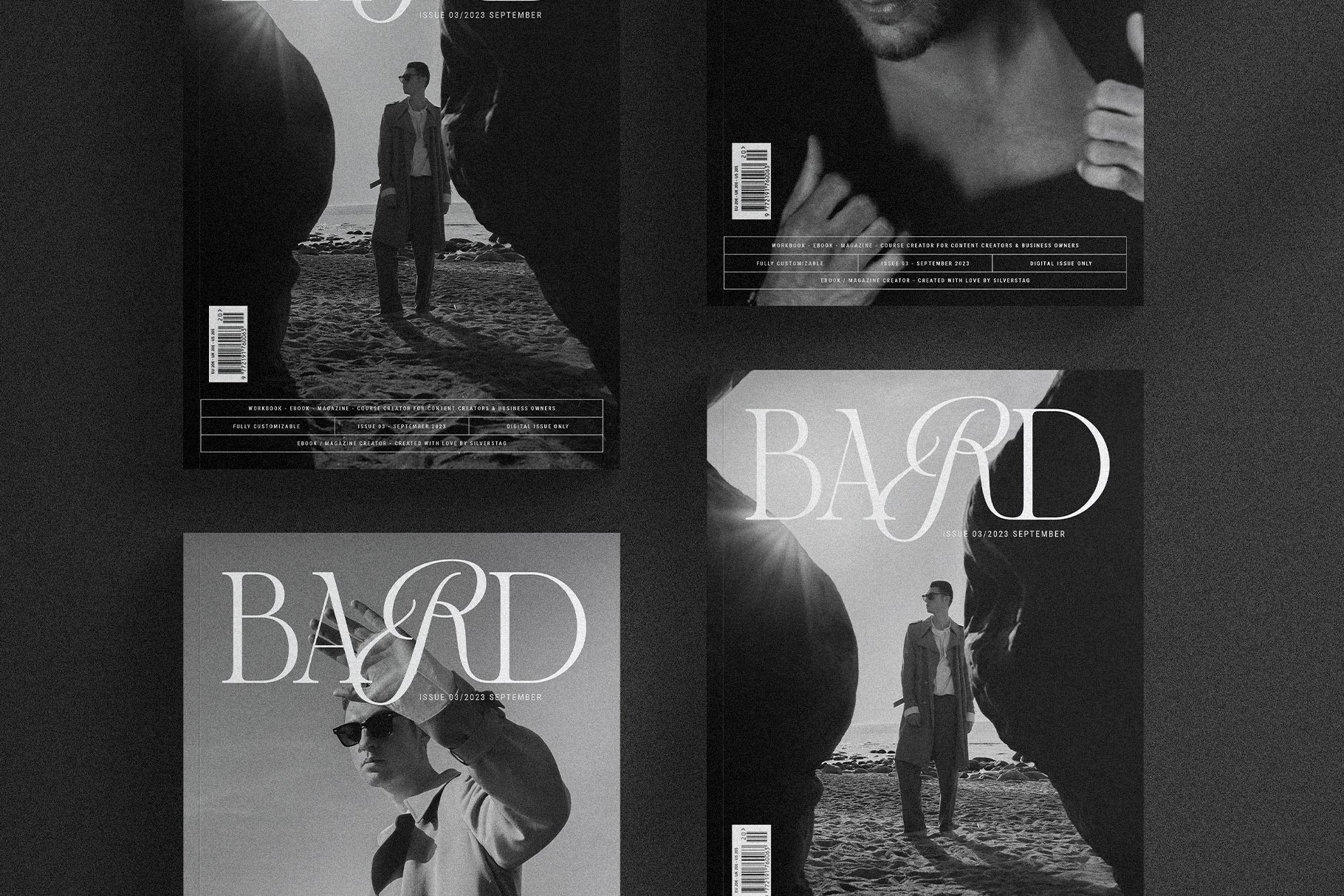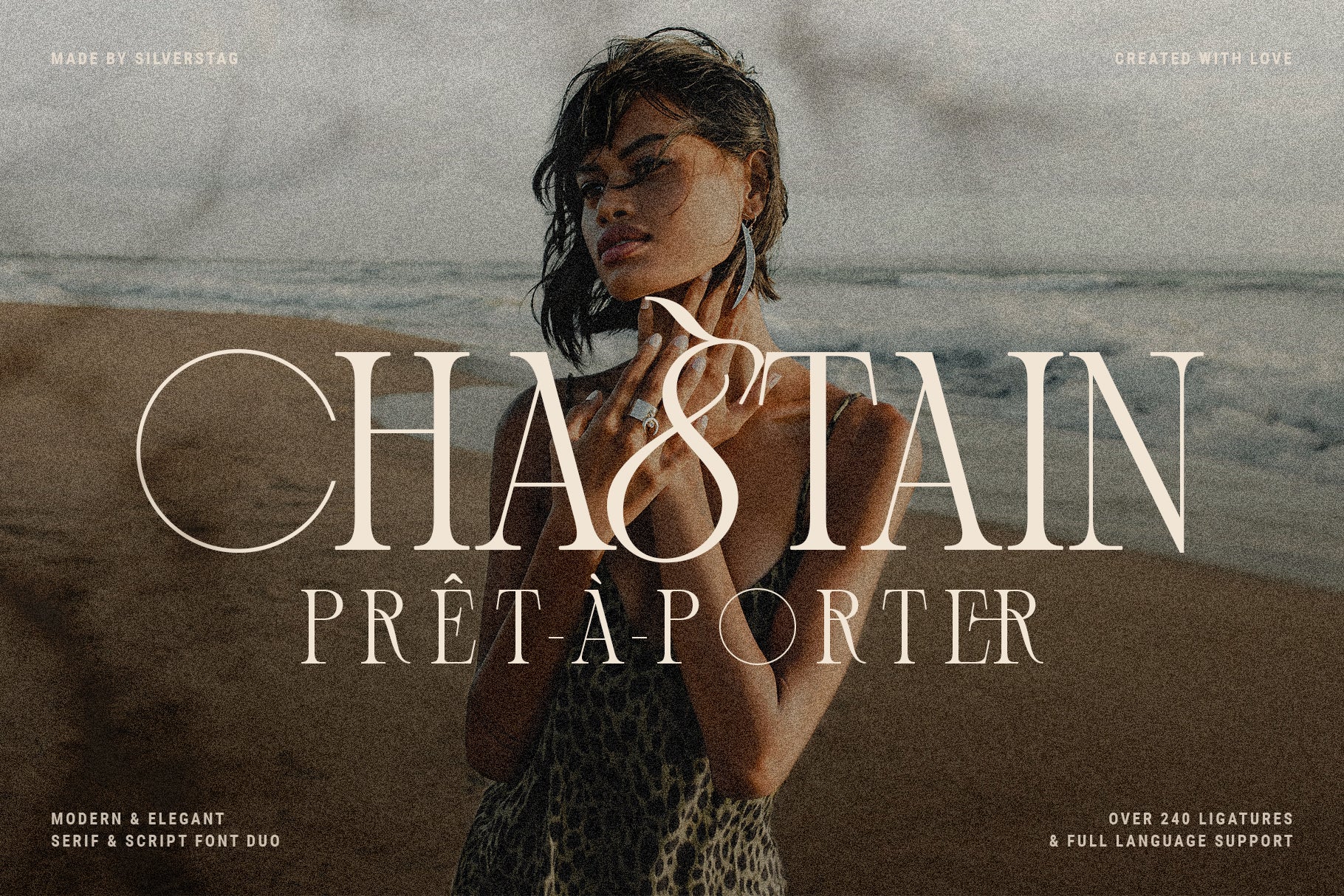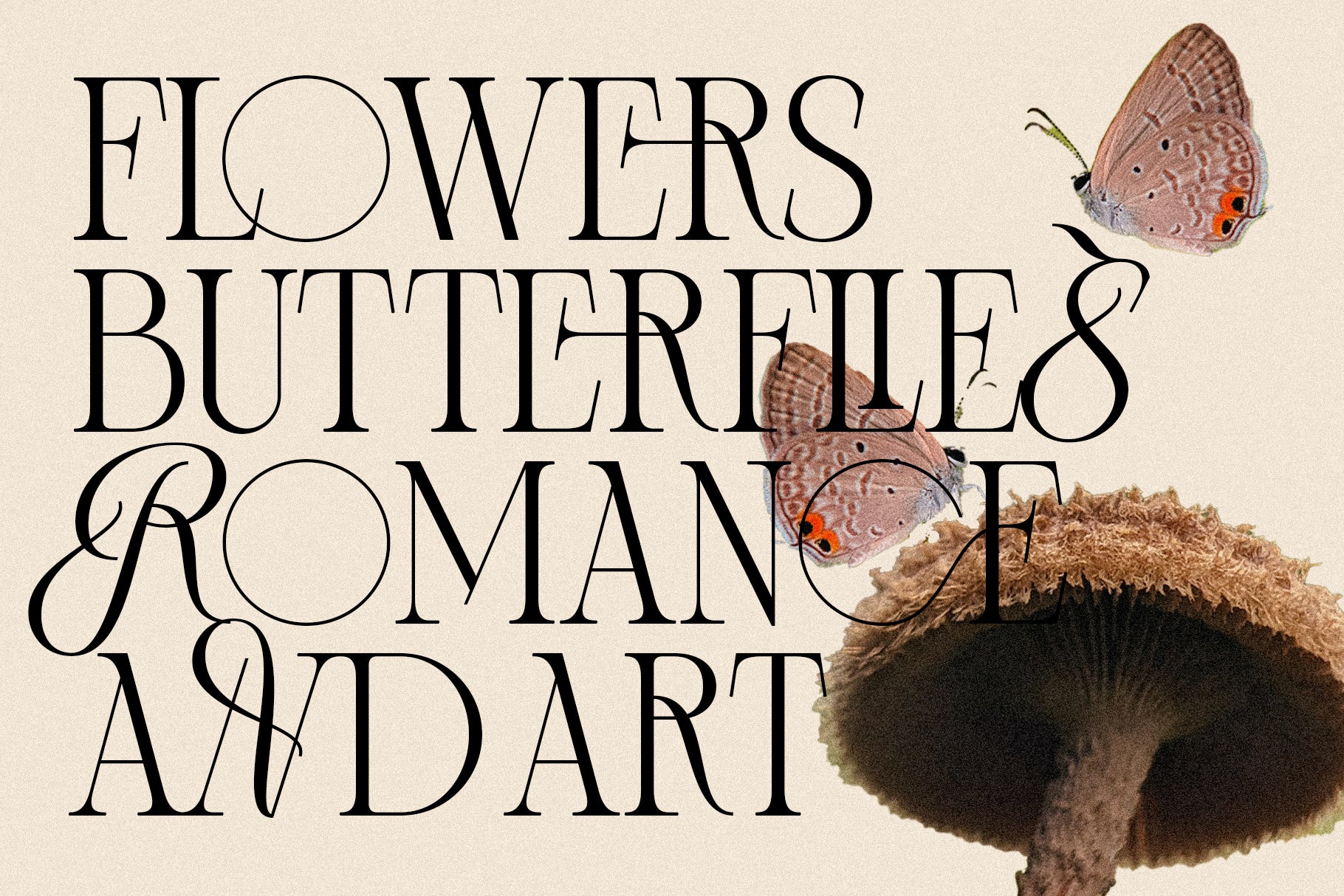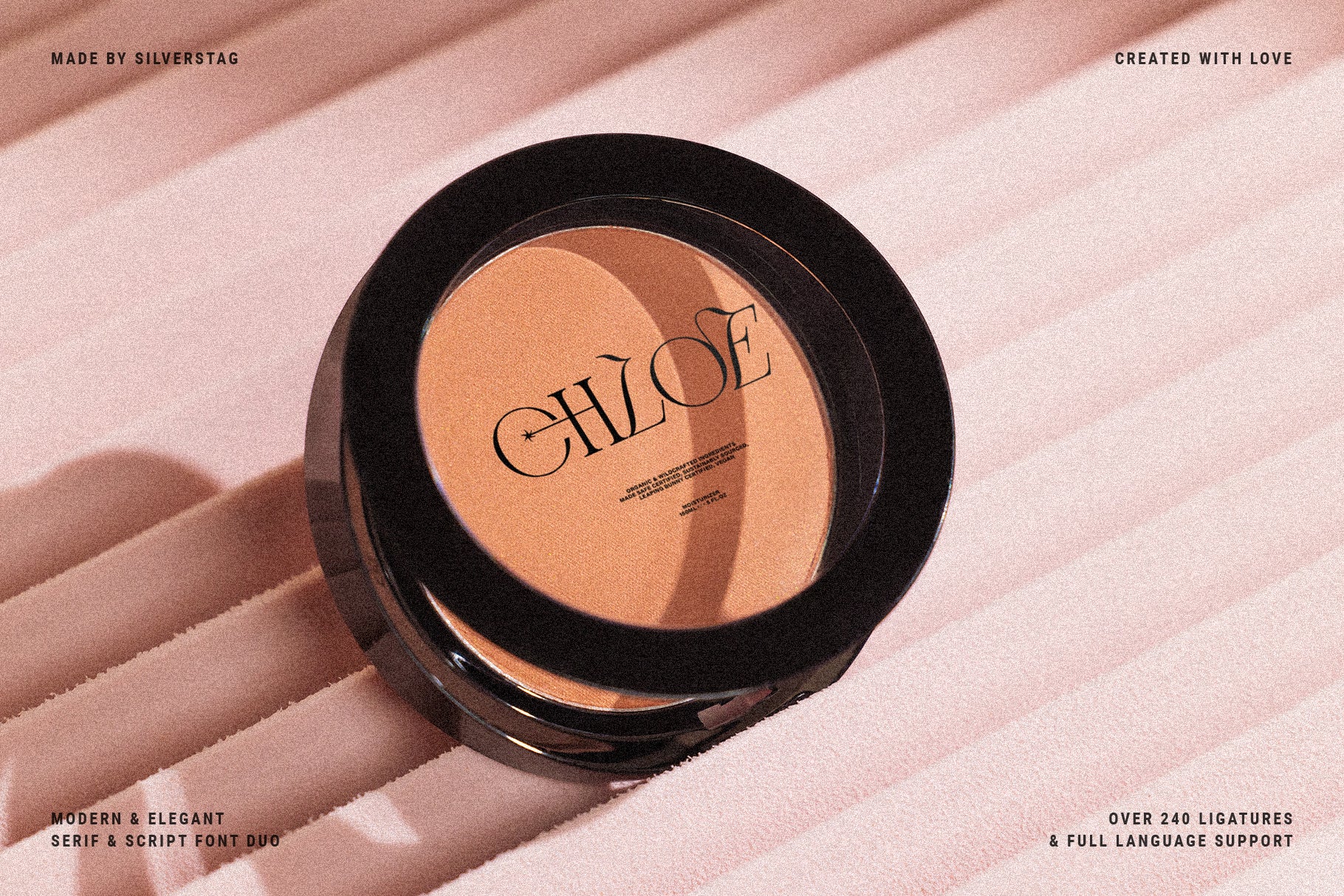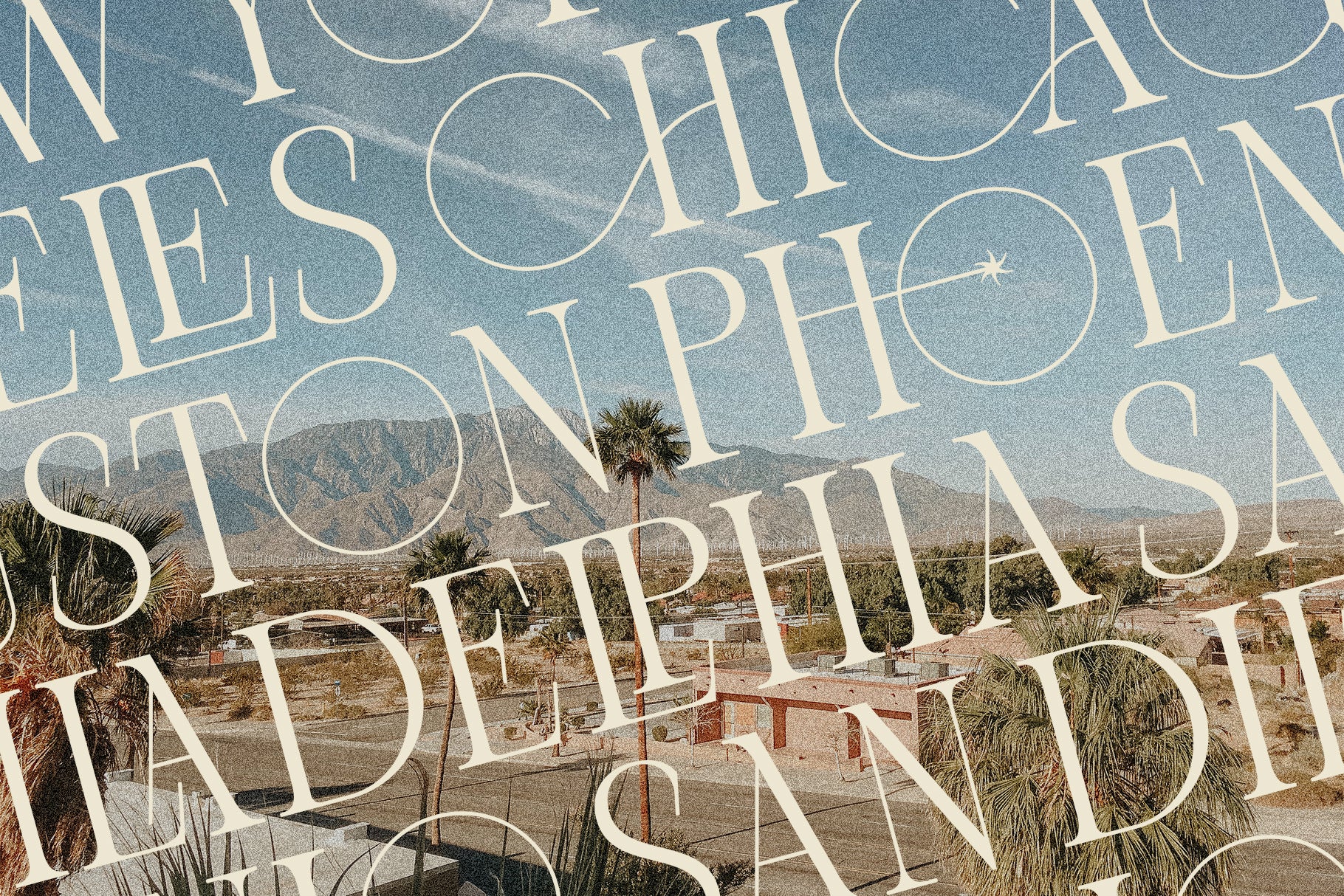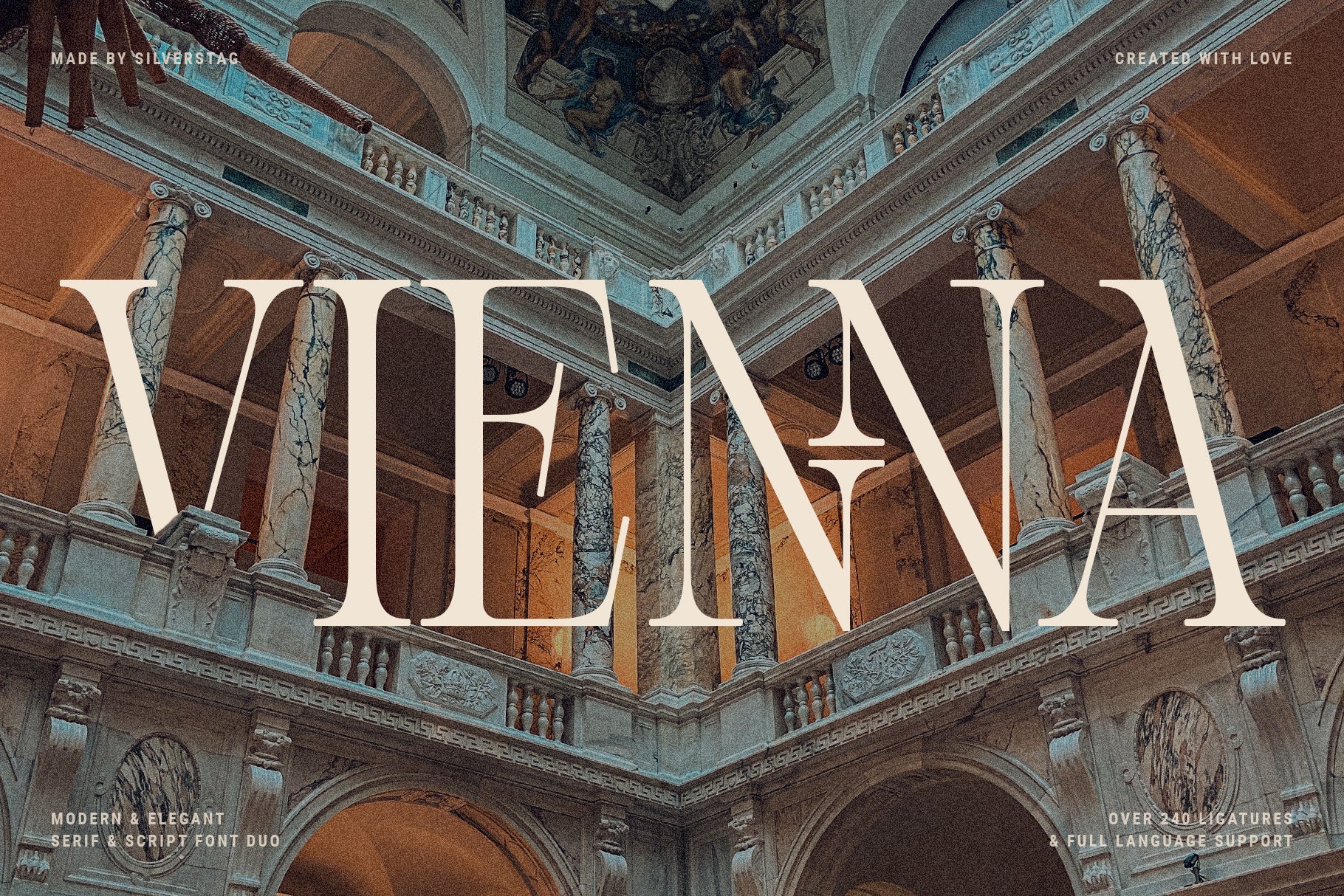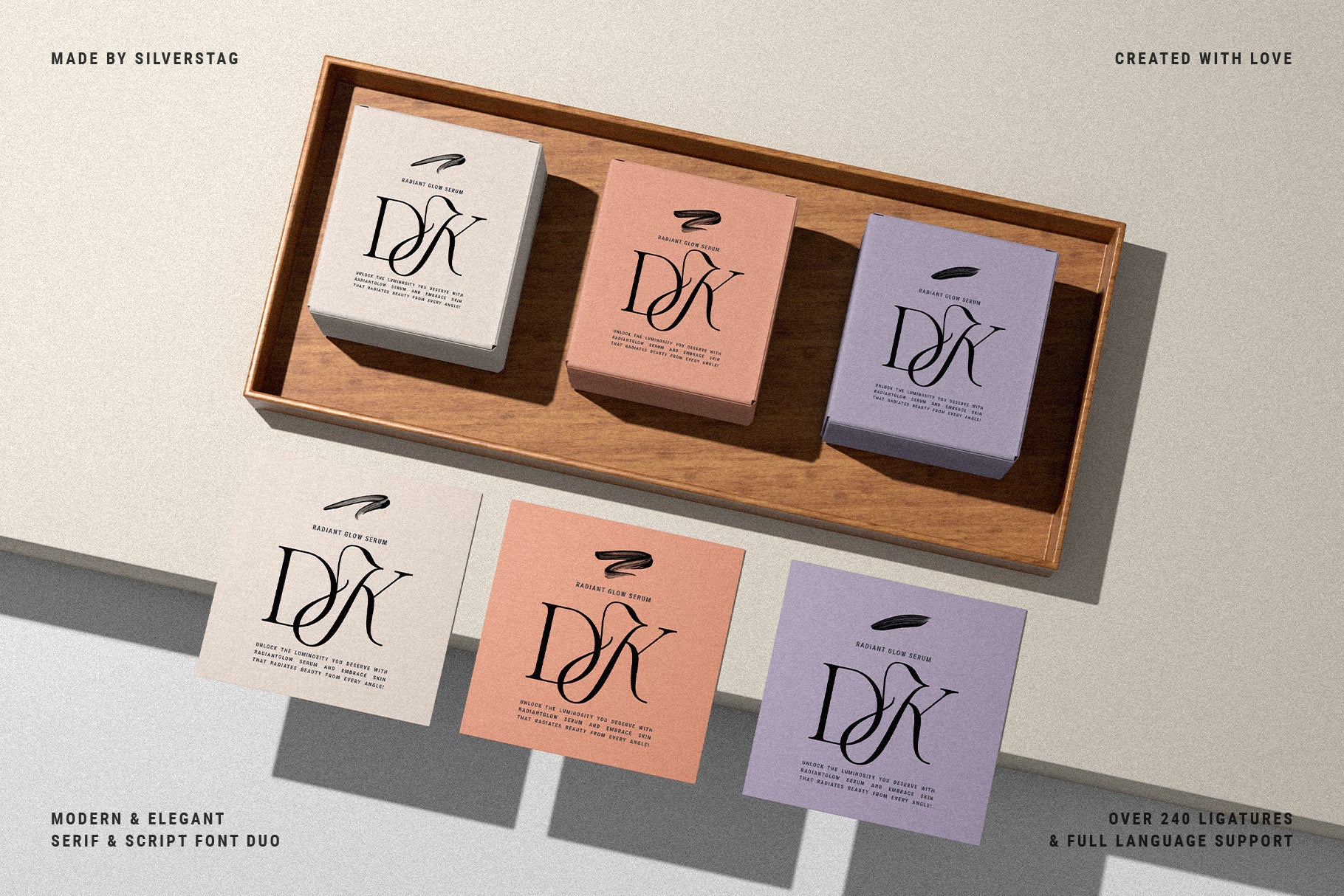
Bespoke Display is an elegant font duo that merges the timeless beauty of a modern serif with the graceful flow of an expressive script. Designed to feel refined yet imaginative, this typeface brings together two voices—structured and fluid—for designs that are both polished and personal.
Featuring over 240 ligatures and stylistic alternates, Bespoke Display offers endless combinations for creating distinctive headlines, refined logos, artistic branding, and editorial design. The high contrast between thin and thick lines adds a dramatic flair, while the seamless pairing of serif and script creates a bold, cohesive typographic system.
With full language support for over 90 languages, this font duo is designed for global creativity. Whether you’re building a luxury brand, crafting sophisticated invitations, or developing a modern editorial concept, Bespoke Display provides the tools to bring elegance and emotion into every letter.